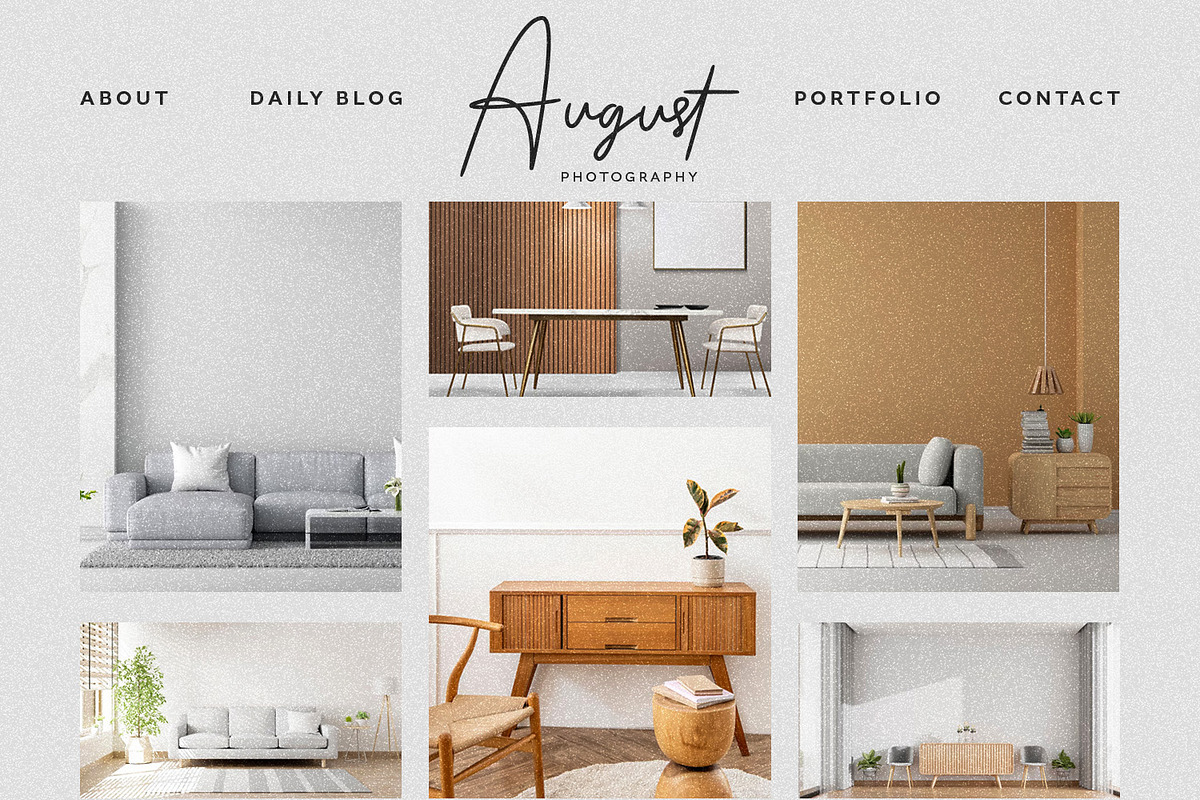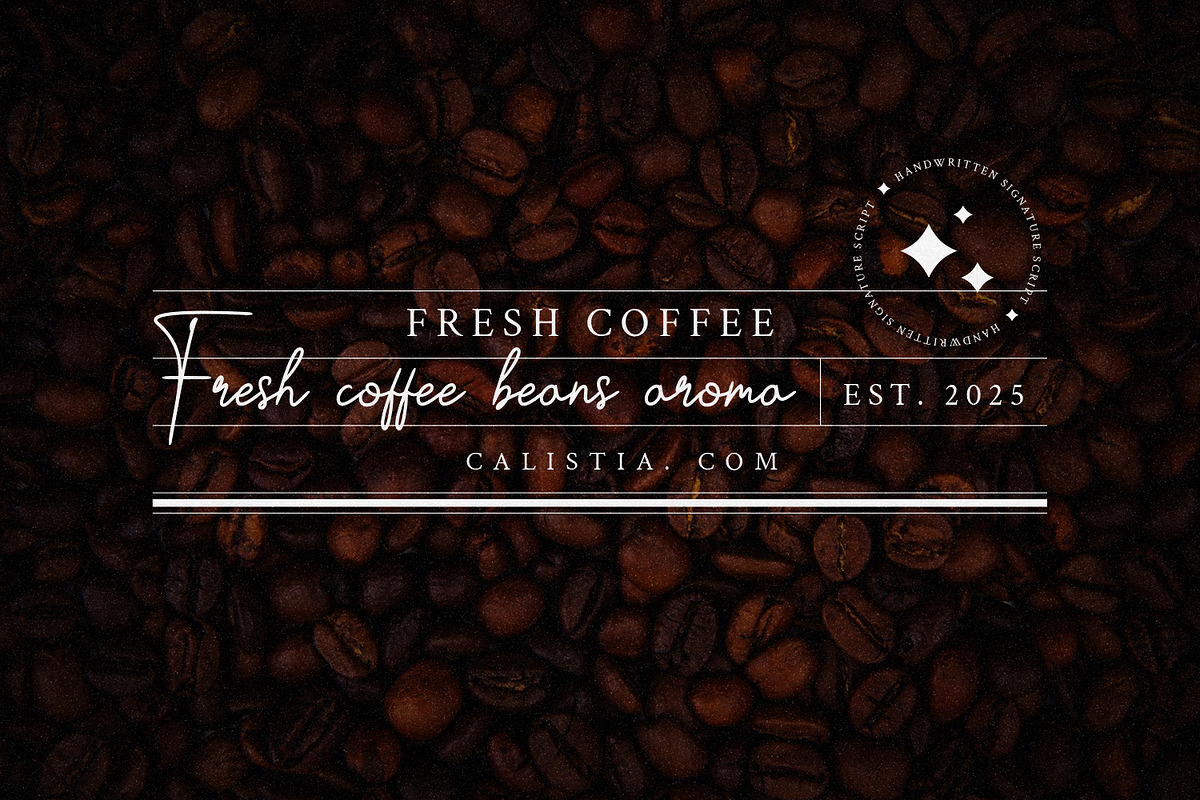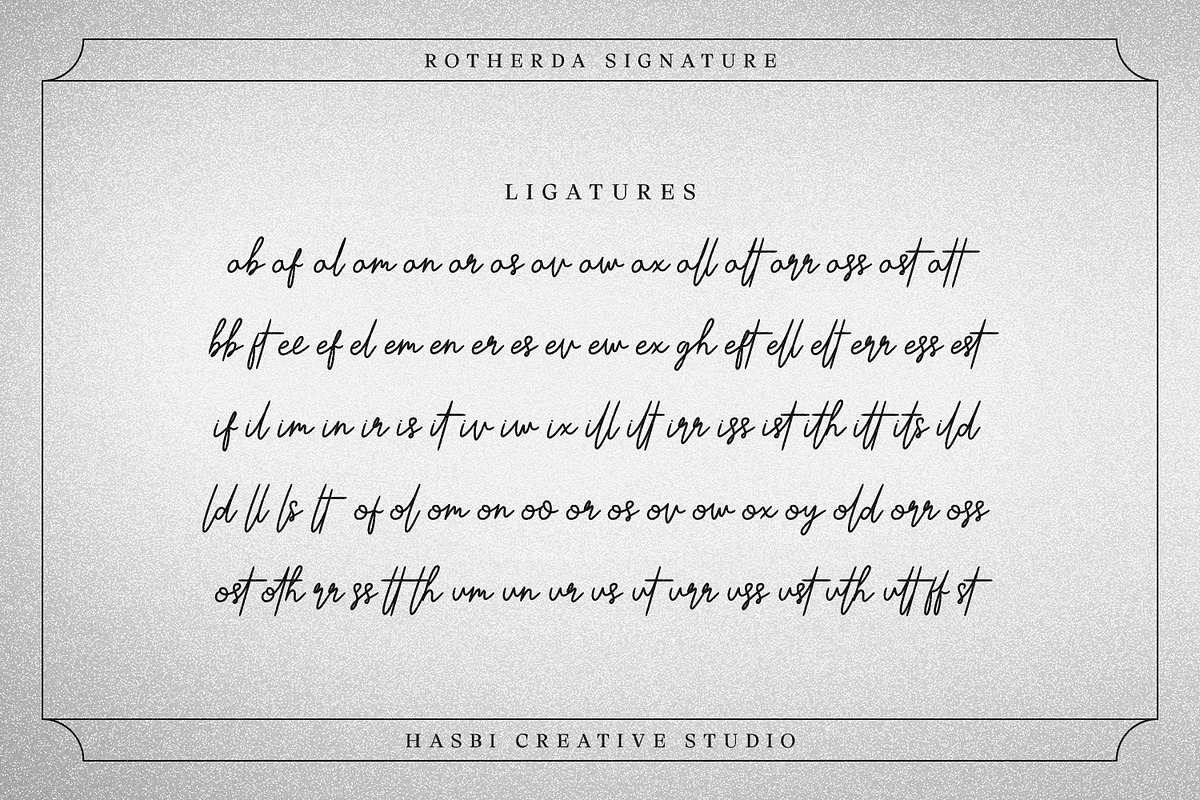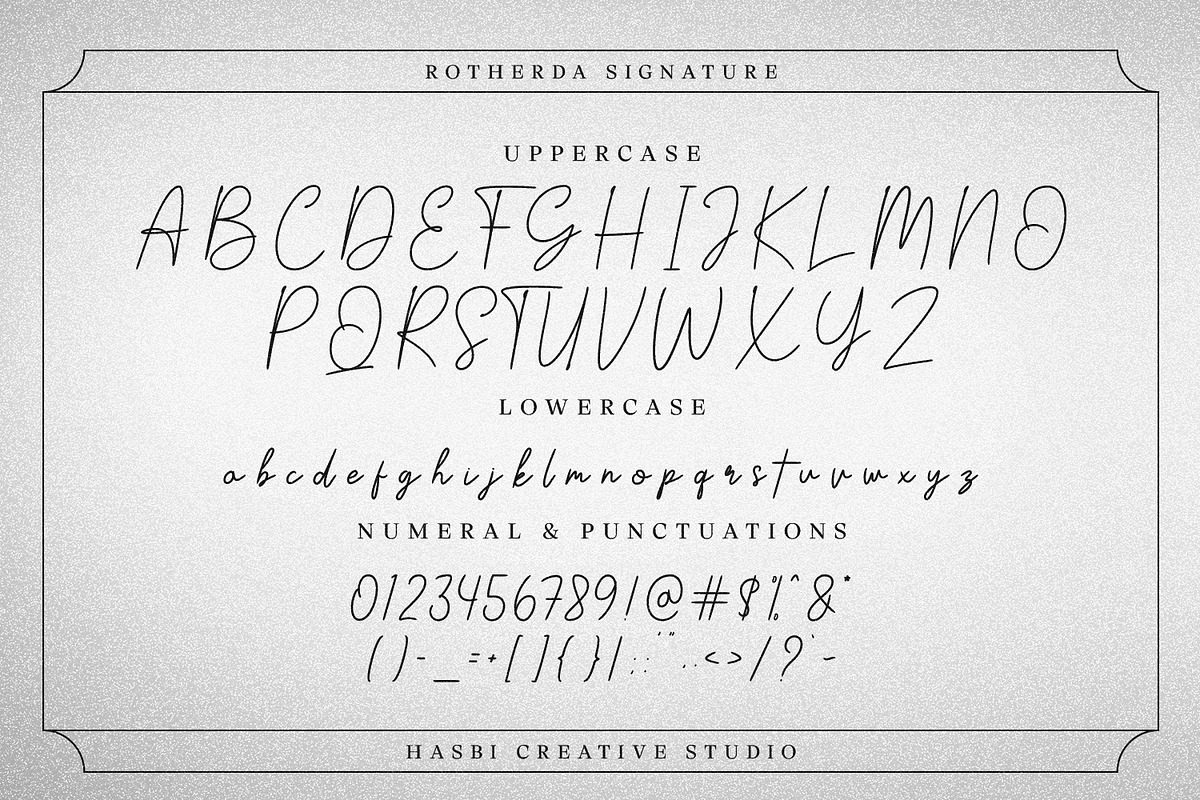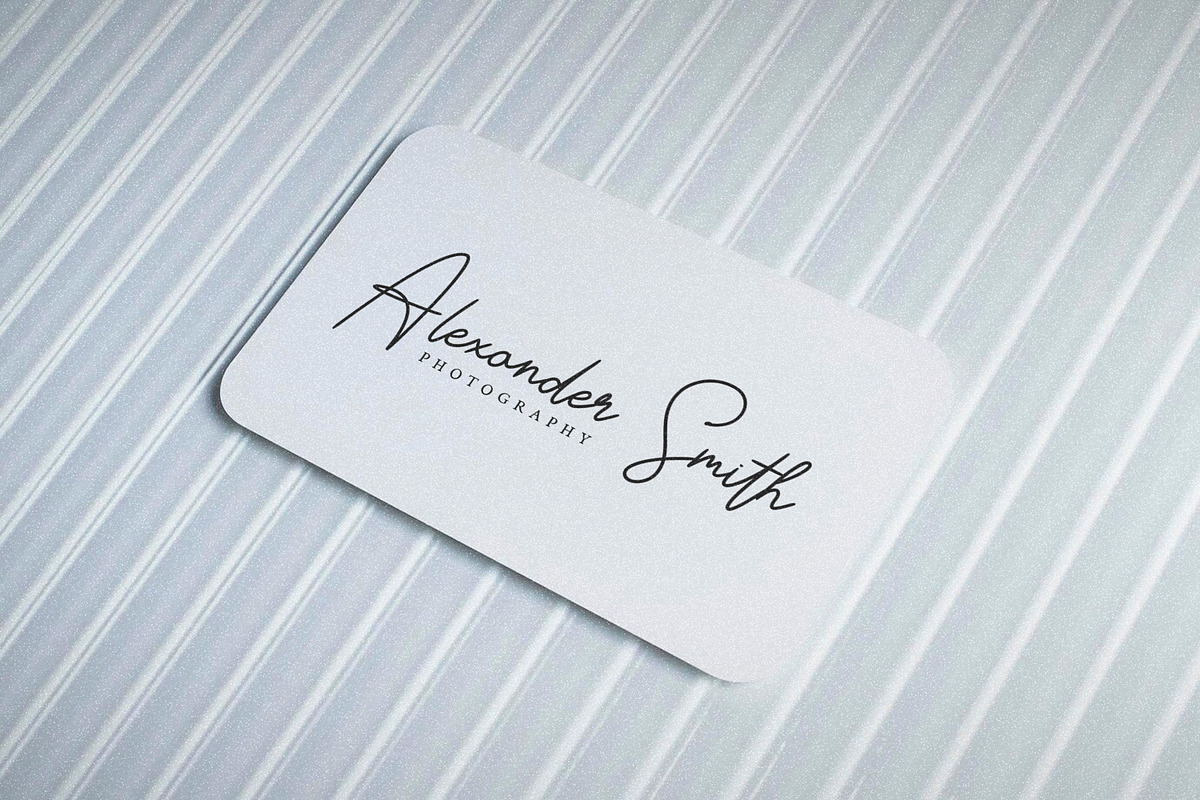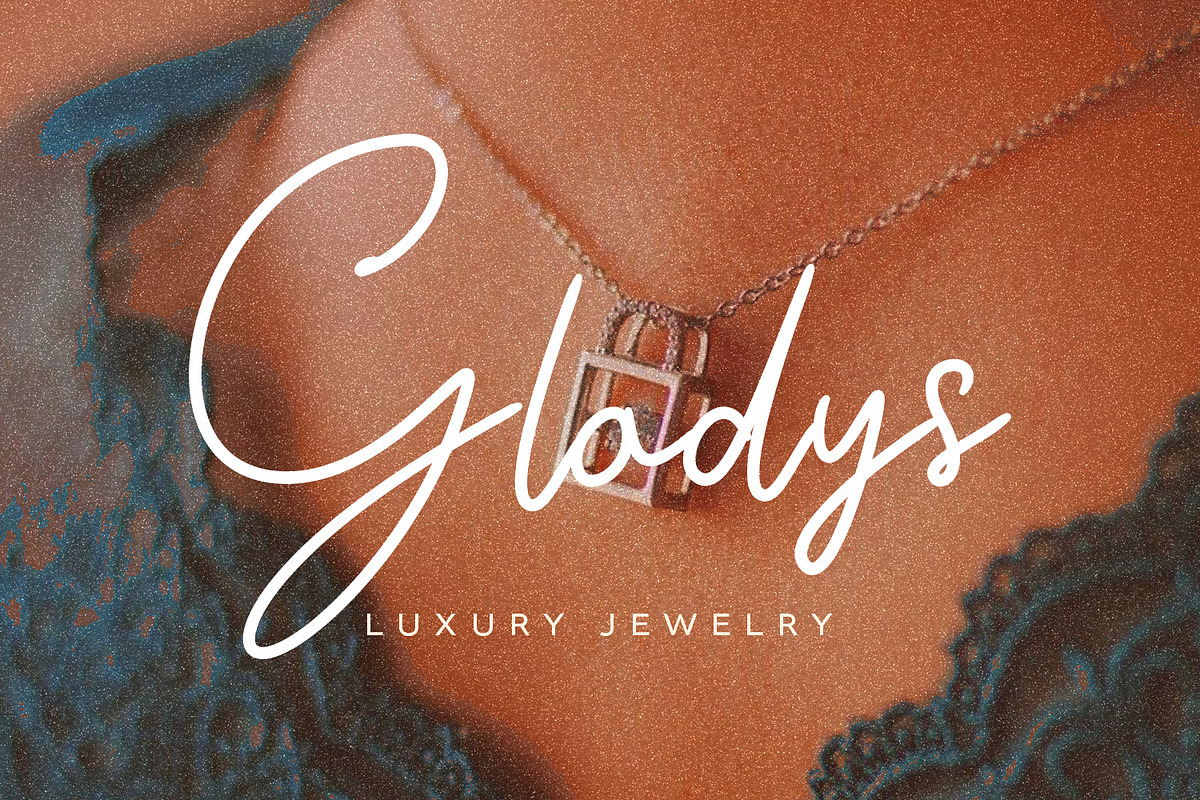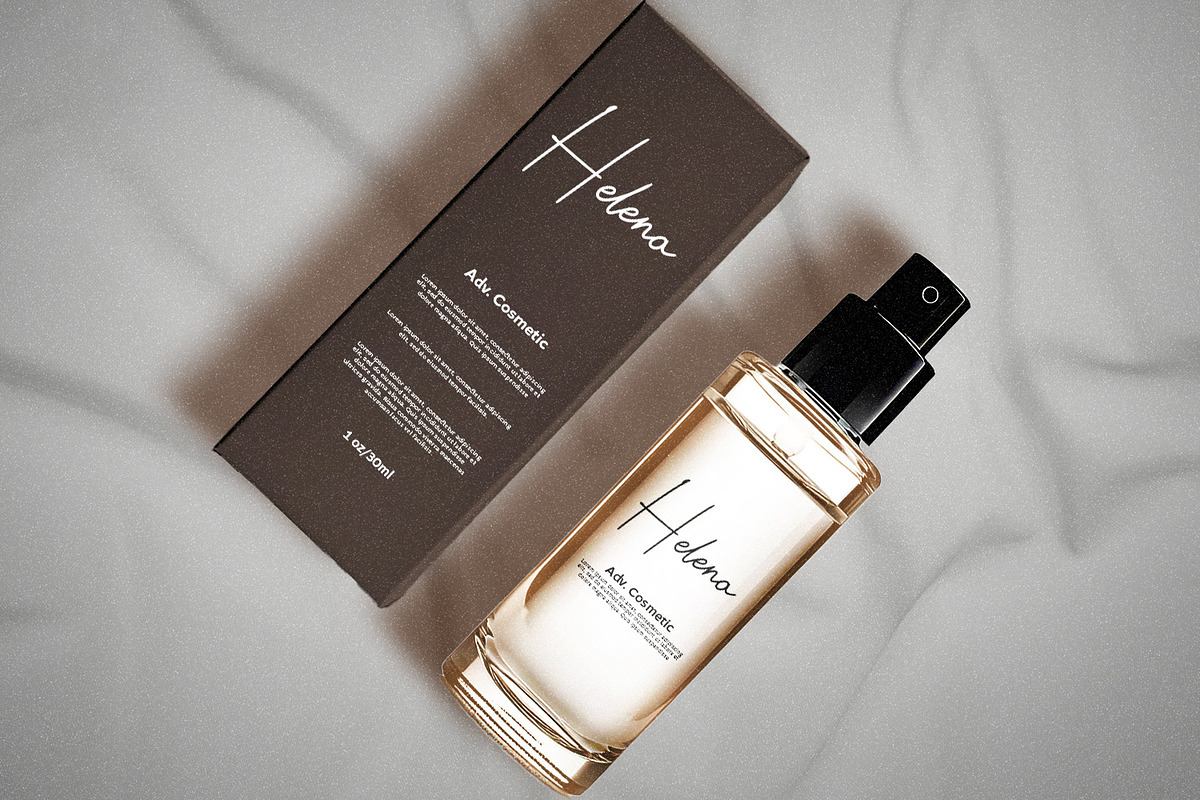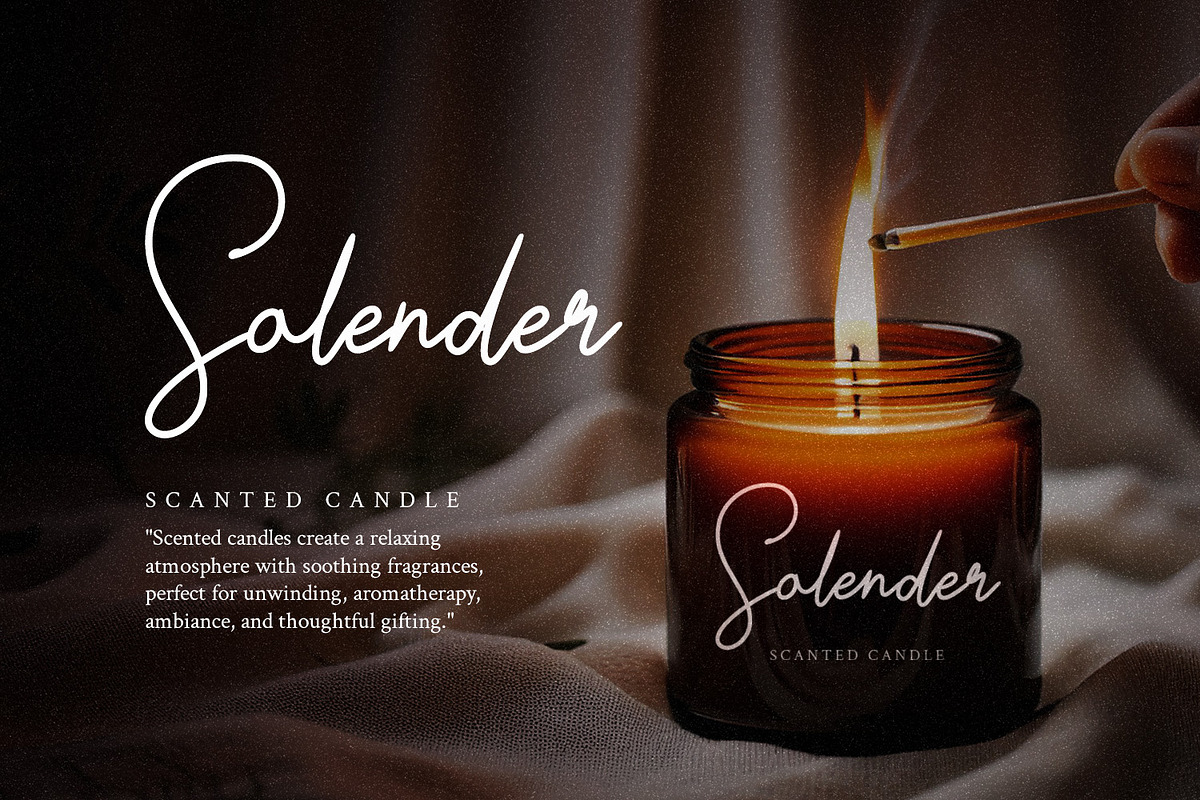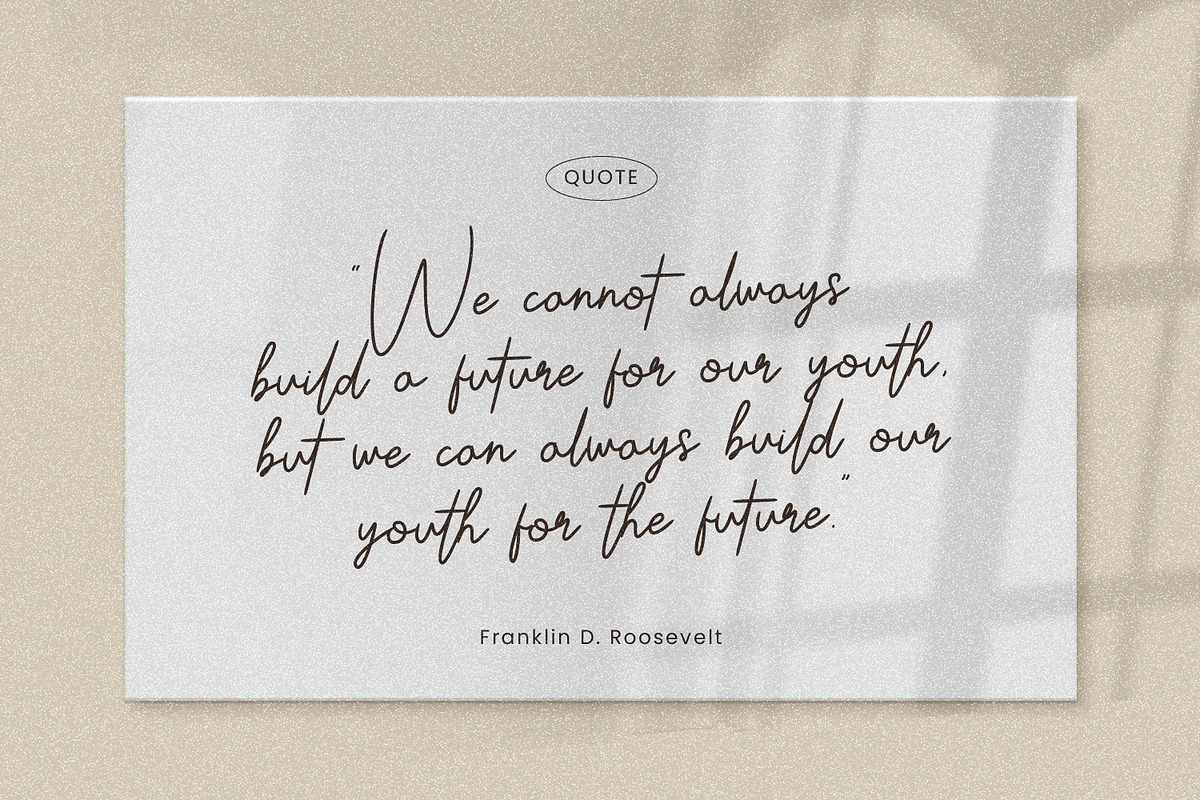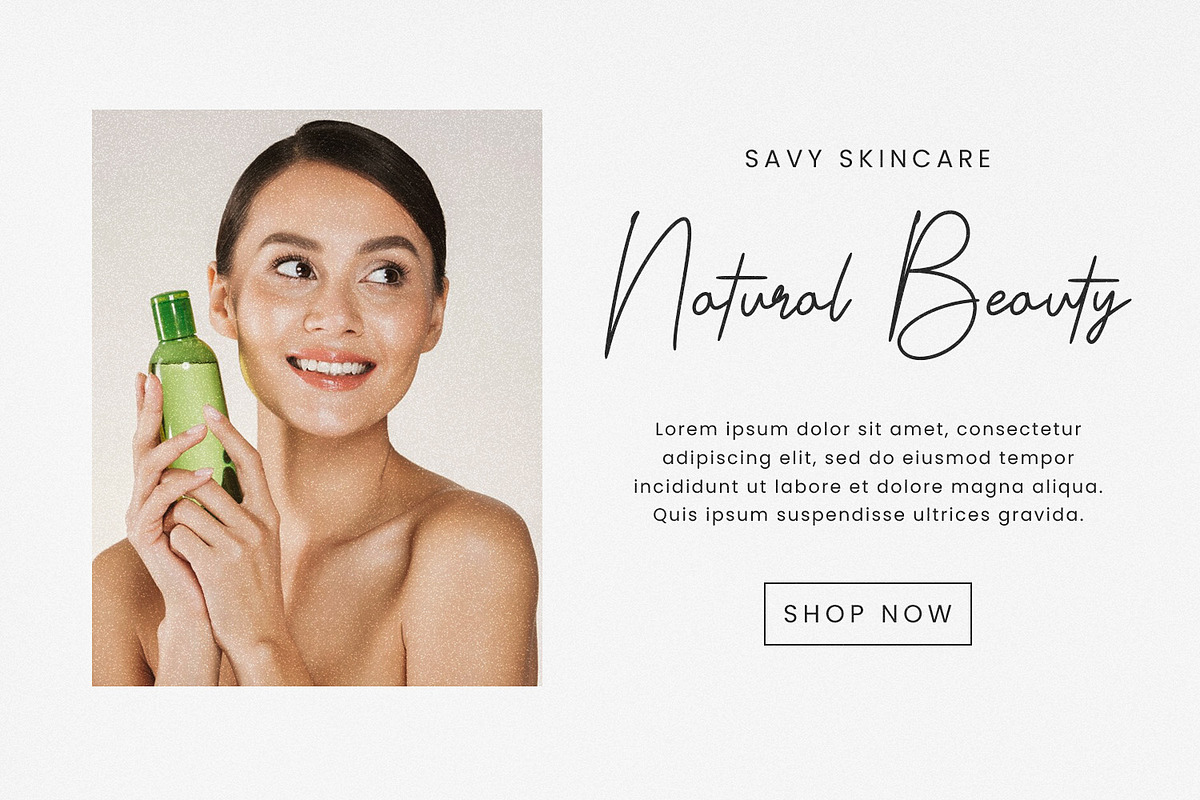
Calistia - Signature
Calistia is a premium script handwritten font inspired by the elegance of natural signature-style lettering. With its smooth curves, flowing strokes, and realistic hand-drawn feel, Calistia is perfect for a wide range of creative projects. Ideal for branding, logo design, wedding invitations, business cards, and luxury packaging, this font adds a touch of sophistication and charm.
Whether you're creating modern minimalist designs or looking to elevate your project with a personalized handwritten aesthetic, Calistia is the perfect choice. Fully optimized for digital and print, it ensures versatility and style across all platforms.
This font is:
- Authentic handwritten style
- Easy to use